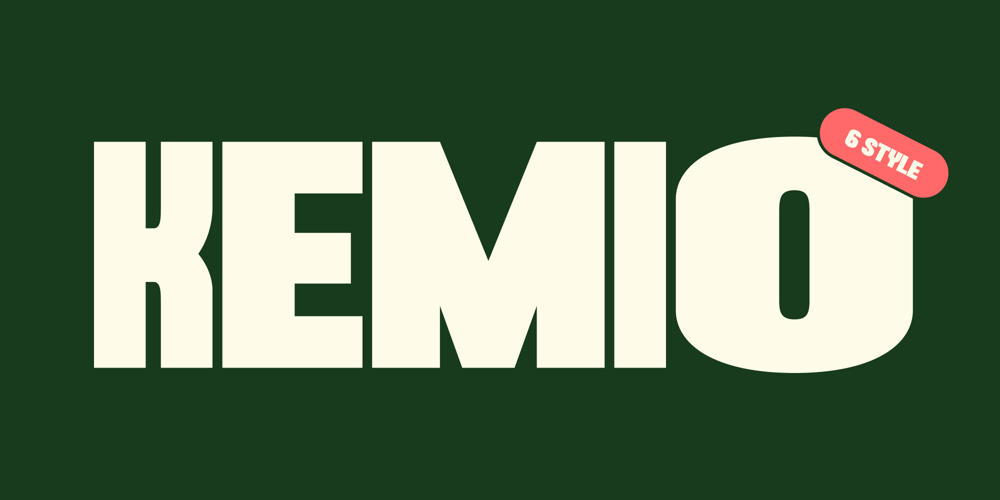
Kemio Font Family was designed by Moch Fitrah Hidayat and published by Fitrah Type. Kemio contains 6 styles and family package options. Kemio is the newest typeface with a modern style. Character Inspired By Retro and Bold Typeface. The entire typography has been designed to work on large sizes. This font is good to use on posters, zines, stickers, and t-shirts.We highly recommend using a program that supports OpenType features and Glyphs panels such as Adobe Illustrator, Adobe Photoshop CC, Adobe InDesign, or CorelDraw, so you can see and access all Glyph variations.